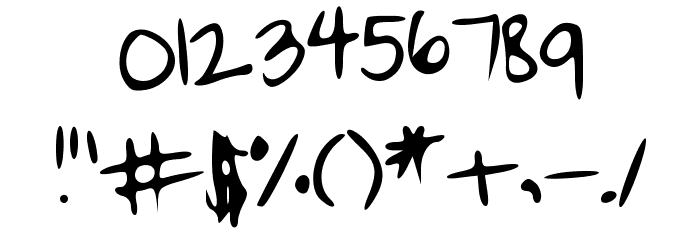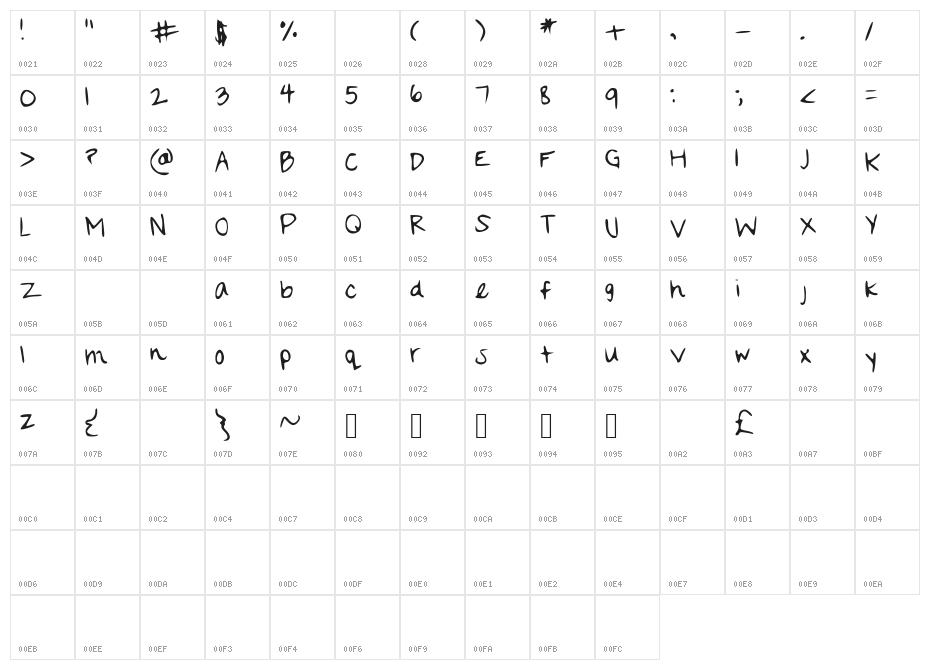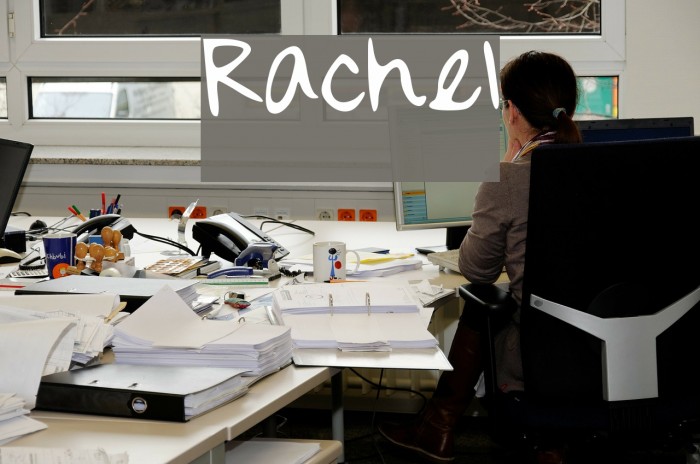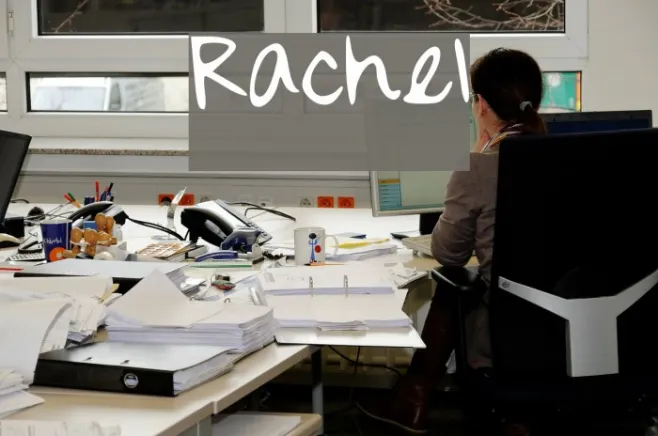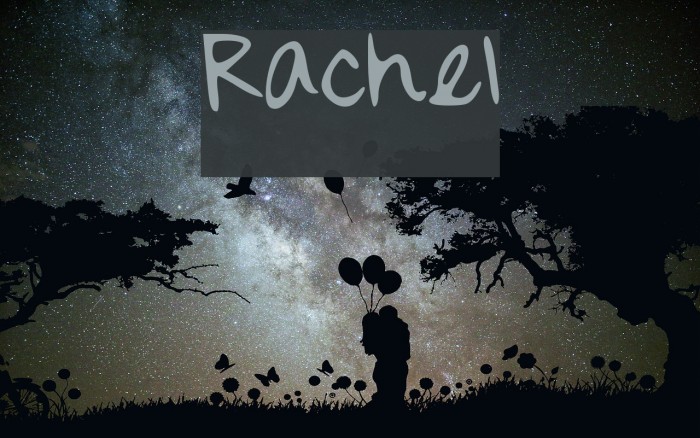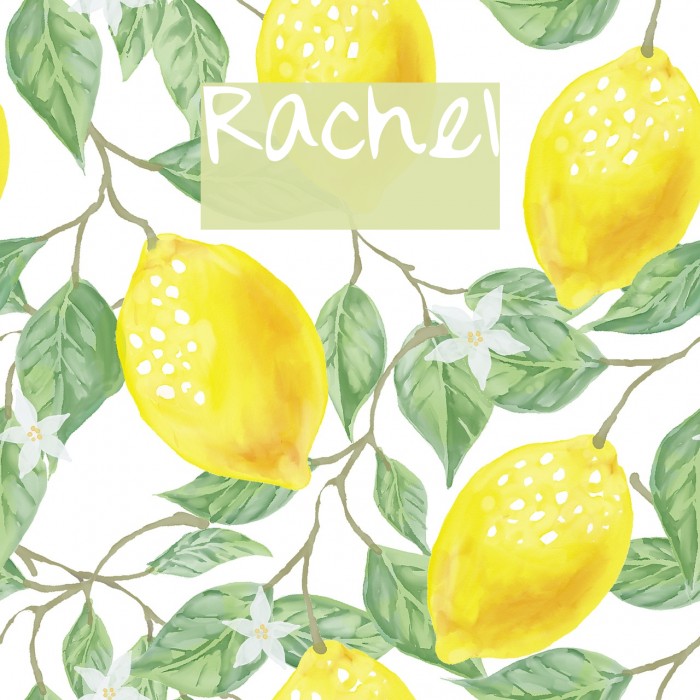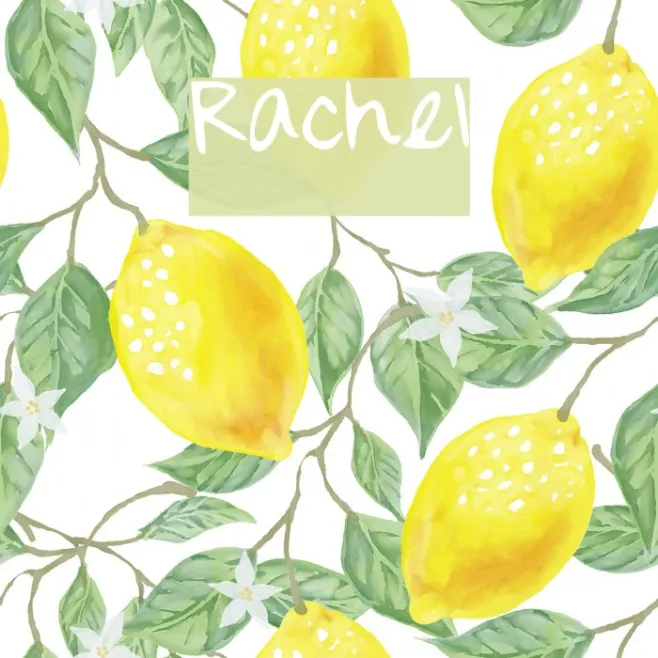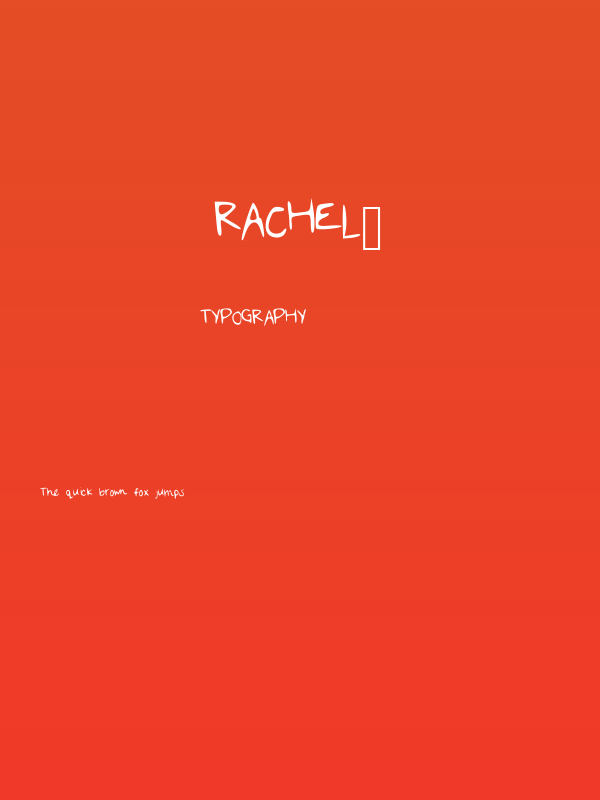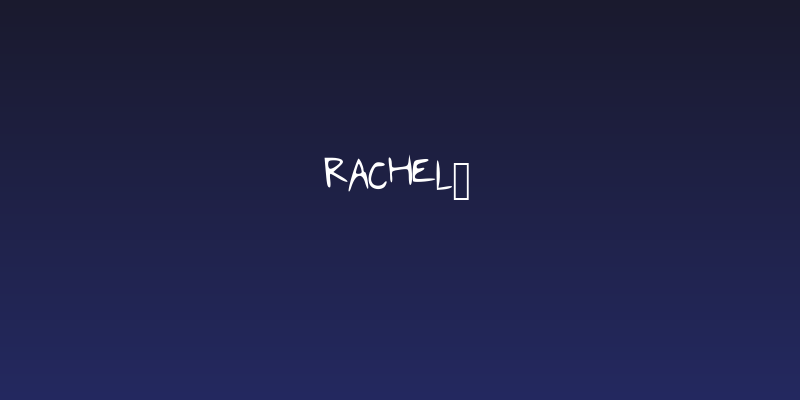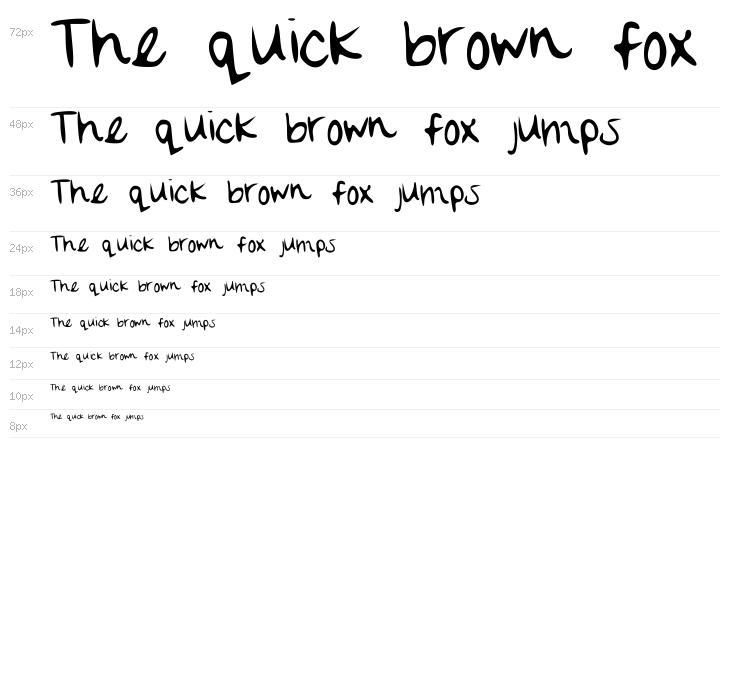
Rachel_ Font
Rachel_ Description
This font exhibits a playful and casual handwritten style, characterized by its irregular and dynamic letterforms. The strokes are uneven, giving it a lively and spontaneous appearance. The uppercase and lowercase letters maintain a consistent flow, with some letters featuring loops and curves that enhance its informal charm. The numerals and special characters follow the same whimsical style, making it suitable for creative and informal projects. The overall look is approachable and friendly, perfect for adding a personal touch to any design.
| Proposed Projects | Ideal for greeting cards, personal invitations, children's books, and creative branding projects. |